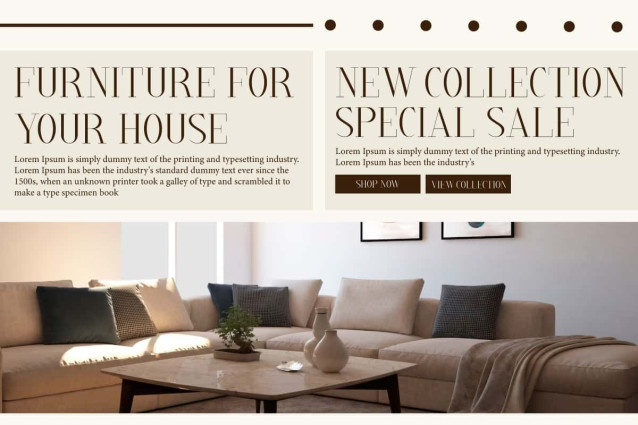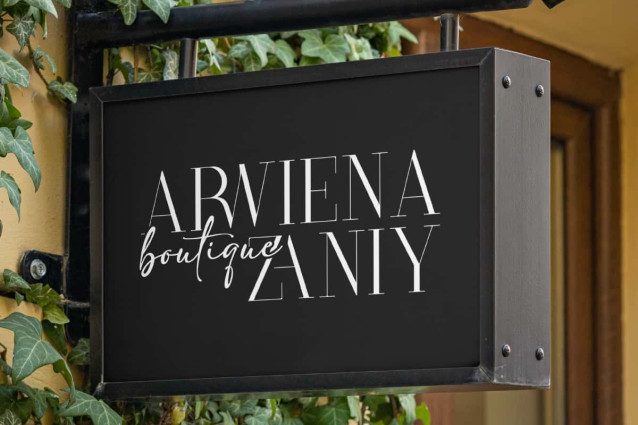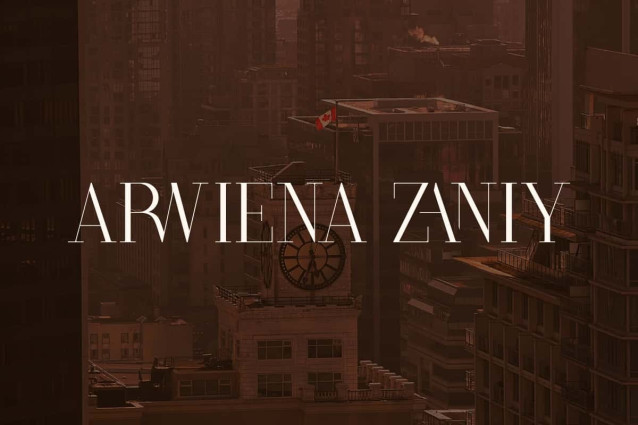
Arwiena Zaniy Font
Arwiena Zaniy Font is an elegant classic serif font with modern decorative elements. The sleek letterforms and artistic condensation variations give it an exclusive impression. This font will be perfect for any projects, can be used for advertisement, brand image, custom design, invitation, label, layout design, quotes, stationery, template design, website, and more!
Arwiena Zaniy Font includes full set of Uppercase and Lowercase Basic Characters, Numerals, Punctuation, Symbol, and Ligature character. Making it a perfect choice for a variety of fields, such as accessories and jewelry, beauty product, event or wedding organizer, fashion, florist, furniture, real estate, spa salon, etc.